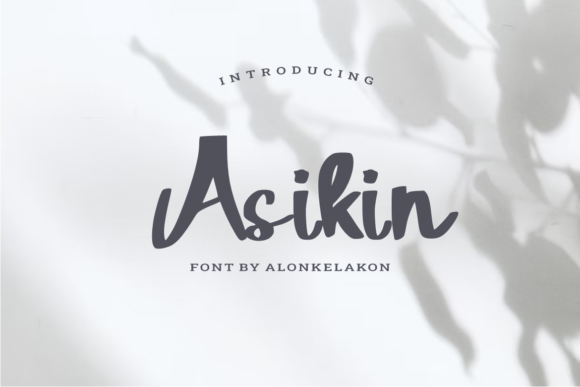
Unleash your creativity and make your designs radiate with joy and love with Asikin, a captivating script font family. Inspired by the spirit of new beginnings and happy celebrations, Asikin dances across your screens, embodying the essence of handwritten elegance.
With its gentle curves and flowing lines, Asikin whispers a tale of romance and happiness. Every letter is a brushstroke of beauty, delicately crafted to evoke a sense of warmth and cheer. Whether you're designing wedding invitations, greeting cards, or creating whimsical logos, Asikin adds a touch of magic to every project.
Dive into a world of endless possibilities with Asikin. Its versatility knows no bounds, allowing you to effortlessly weave it into any design concept. From playful illustrations to heartfelt messages, Asikin transforms your words into works of art.
Embrace the charm of Asikin and let your designs bloom with happiness. Each character carries a story, inviting your audience into a realm of joy and celebration. Make your designs shine with Asikin, the font that captures the essence of life's sweetest moments.